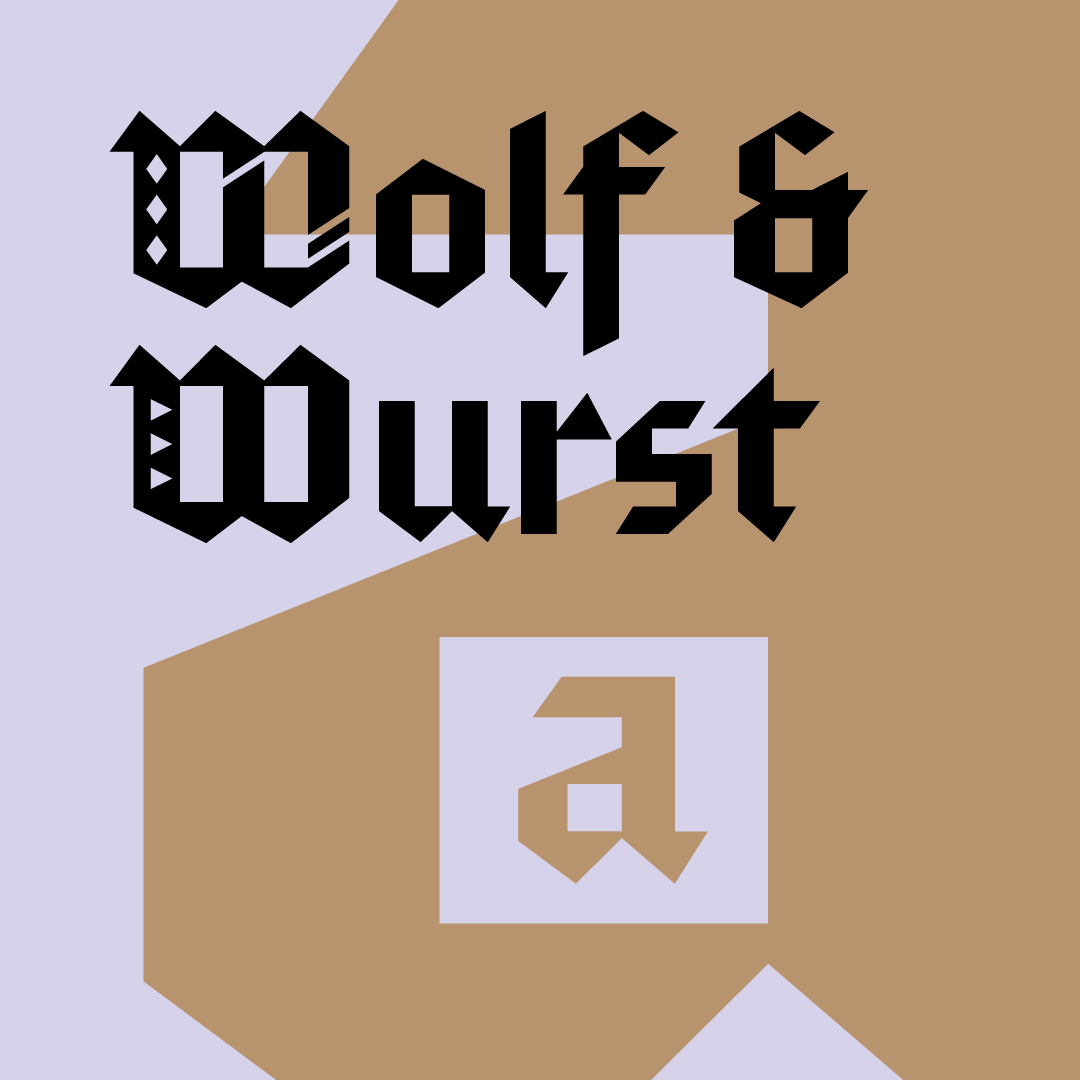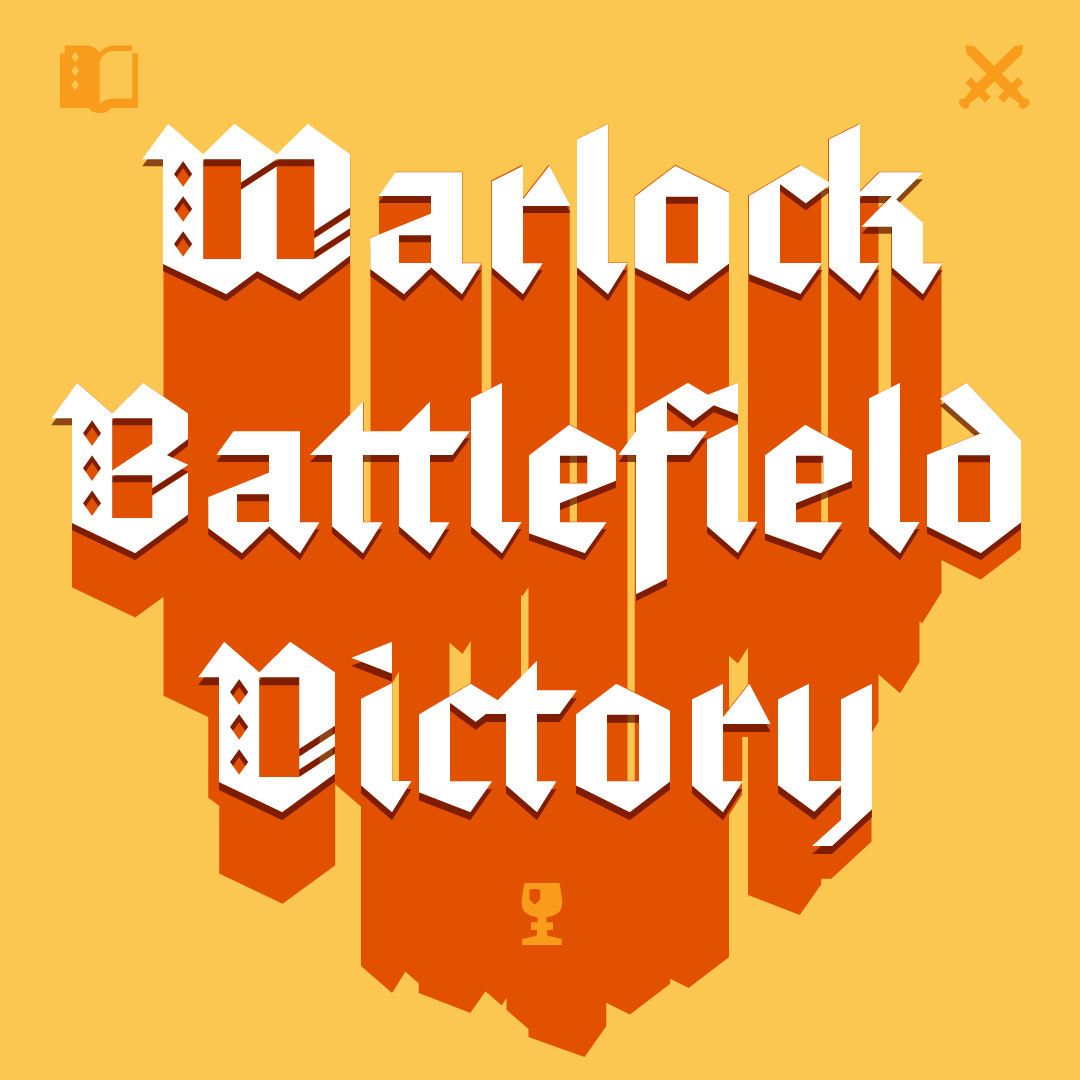
Fleisch
A simplified blackletter
in two distinct styles.
Designed by Joachim Müller-Lancé
Fleisch is a blackletter pair inspired by lettering that the designer, Joachim Müller-Lancé recalls from his childhood growing up in Freiburg im Breisgau, in southwest Germany. Fleisch also harks back to German 1920’s typefaces, droll picture books, newspaper advertising, and cigar box labels. A bit of a remix, Fleisch is not based on any particular era, region or style of blackletter, but rather is borrowed freely from various sources.
Fleisch features two styles or “flavors”, since they have the same weight and similar proportions: Fleisch Wurst features more square-ish letter counters and terminals, somewhat modernized — with a more chunky, earthy appearance. Fleisch Wolf is more pointy, slanty and detailed — with a lighter, more elegant and traditional appearance.
Raised on Lego blocks as a kid, the modularity of brokenscript always seemed like an intriguing formal exercise. With his basic idea for Fleisch, Joachim finally found his own approach: Letters aren’t just made up from lines of varying thickness. The ways in which the inside ‘negative spaces’ interact with their outside containers, and the spaces between letters, feel more important.
In Müller-Lancé’s opinion, the capital letters of many blackletter variants are too ornate to be set in all-caps therefore, Fleisch’s uppercase is simplified and ‘romanized’ to maintain legibility. In addition to the lining and oldstyle figures, Fleisch offers shapes more native to blackletter for the alternates of a, k, x, z, and Z, while the basic alphabet contains the more romanized shapes.
Each style also sports its own full set of decorative uppercase letters, lining figures, currencies and punctuation — great for large initials, drop caps, or entire headlines — and embellish them with a handful of regalia (symbols). •!•
Stylistic Alternates
Historical Forms
Oldstyle Figures
Ligatures
Additional features include: Kerning, Ordinals, Localized Forms, Case-Sensitive Forms, Ornaments, Fractions, Historical Ligatures, Contextual Alternates, and Superscript.